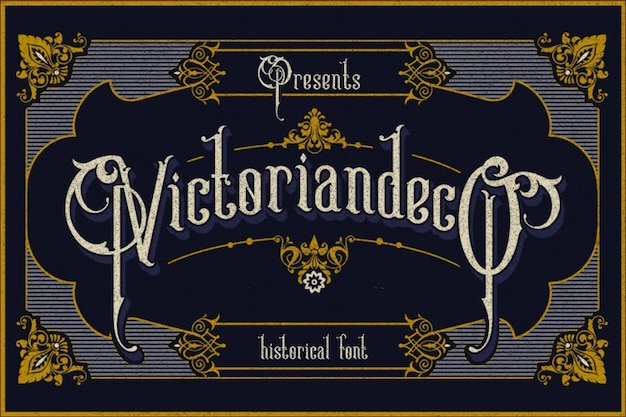
Victoriandeco Font
Burntilldead
"Victoriandeco" is a charming font that blends the ornate elegance of the Victorian era with a whimsical storybook feel. Its antique, decorative letterforms evoke a sense of history and nostalgia, perfect for retro designs, invitations, and literary-themed projects. This font brings a touch of old-world beauty and timeless charm to any creative endeavor.